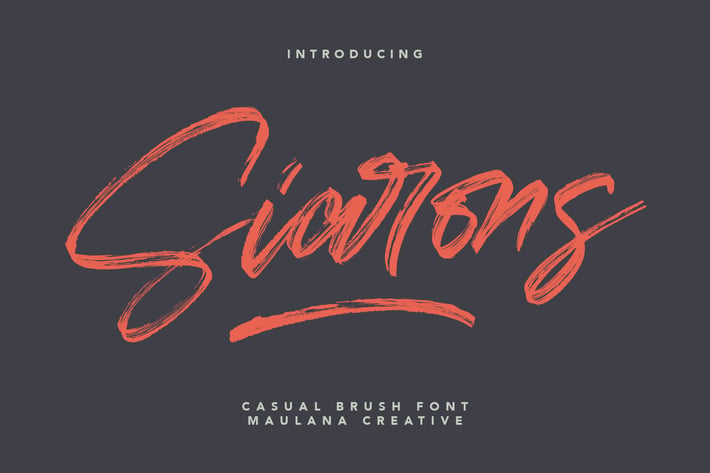
Siarons Casual Brush Font
Give your designs an authentic brush handcrafted feel. "Siarons" is perfectly suited to signature, stationery, logo, typography quotes, magazine or book cover, website header, flyer, clothing, branding, packaging design and more.